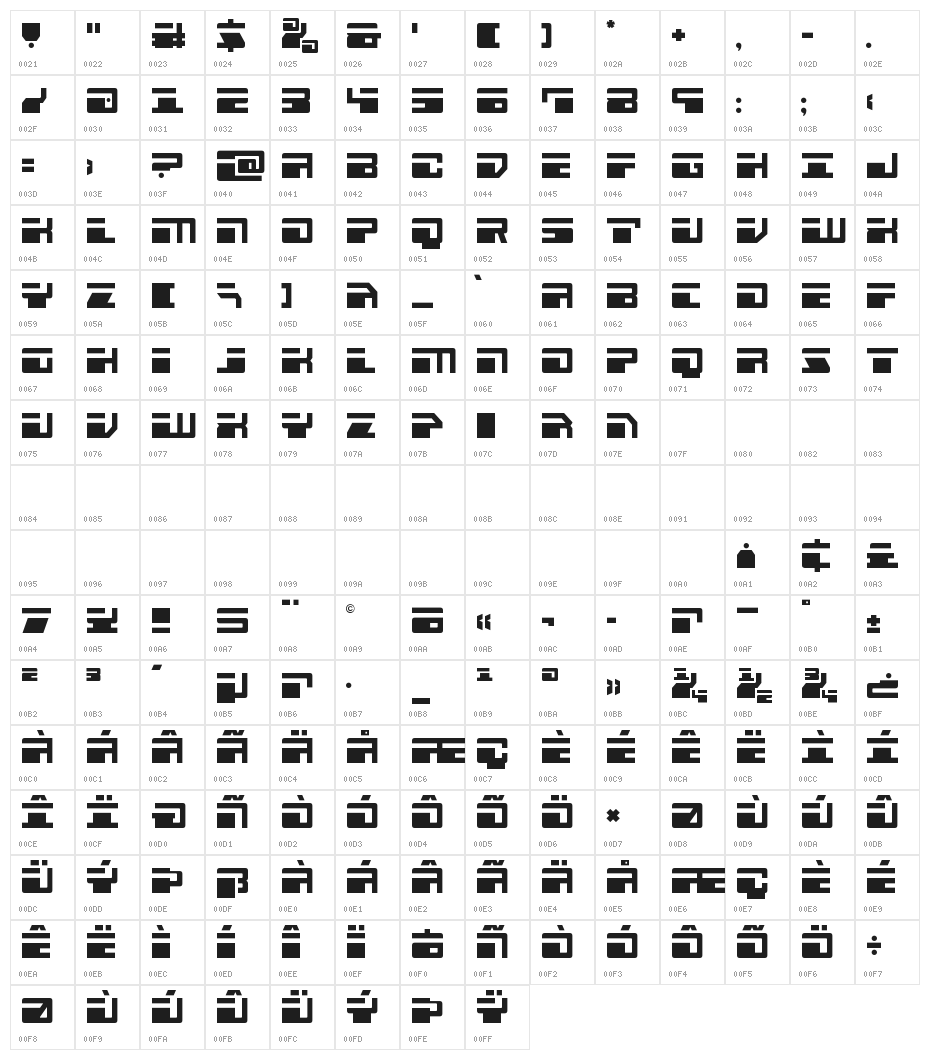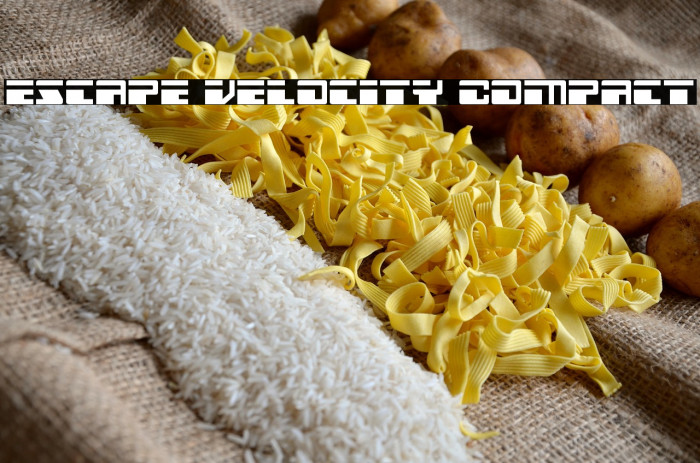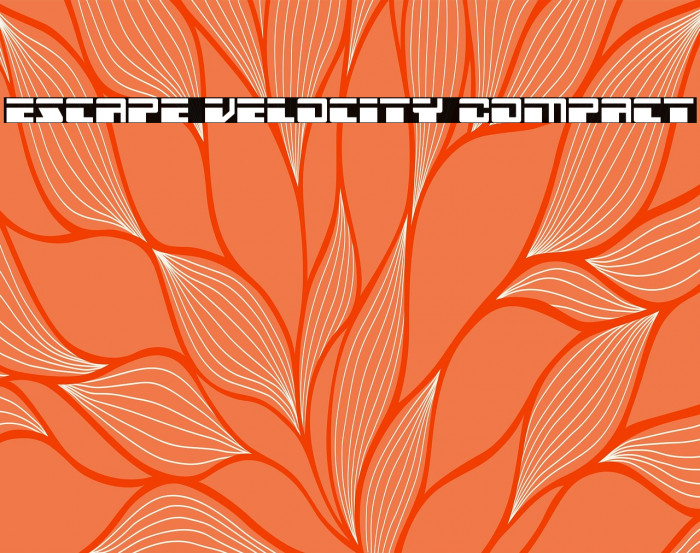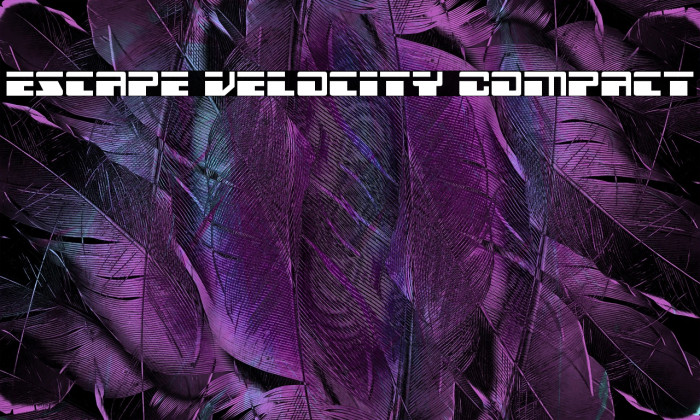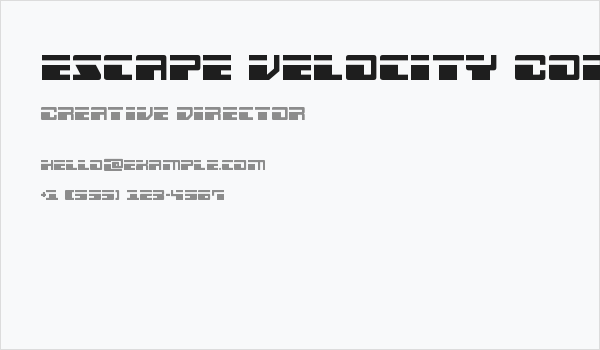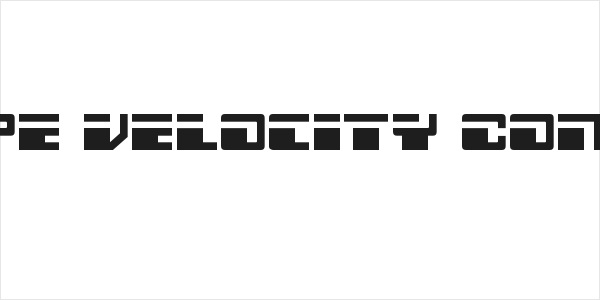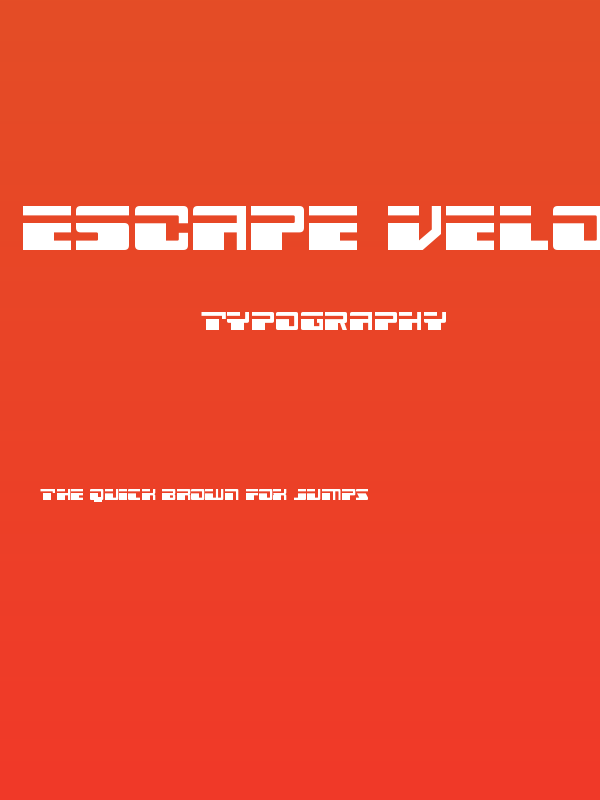
Escape Velocity Compact Font
Escape Velocity Compact Description
This font features a futuristic and geometric design, characterized by its bold and angular letterforms. The uppercase and lowercase letters maintain a consistent block-like structure, with sharp edges and a compact appearance. The numerals and special characters follow the same design principles, ensuring uniformity across all glyphs. The font's distinct style is reminiscent of digital or sci-fi themes, making it ideal for projects that require a modern and technological aesthetic.
| Proposed Projects | Ideal for sci-fi themed posters, video game titles, tech branding, and futuristic user interfaces. |